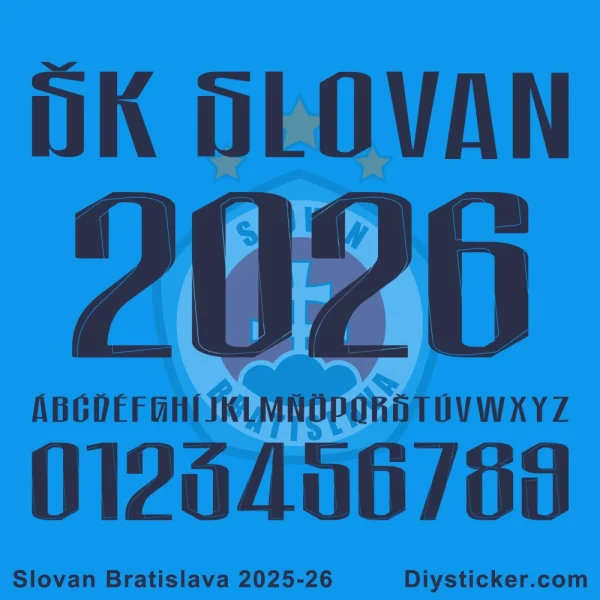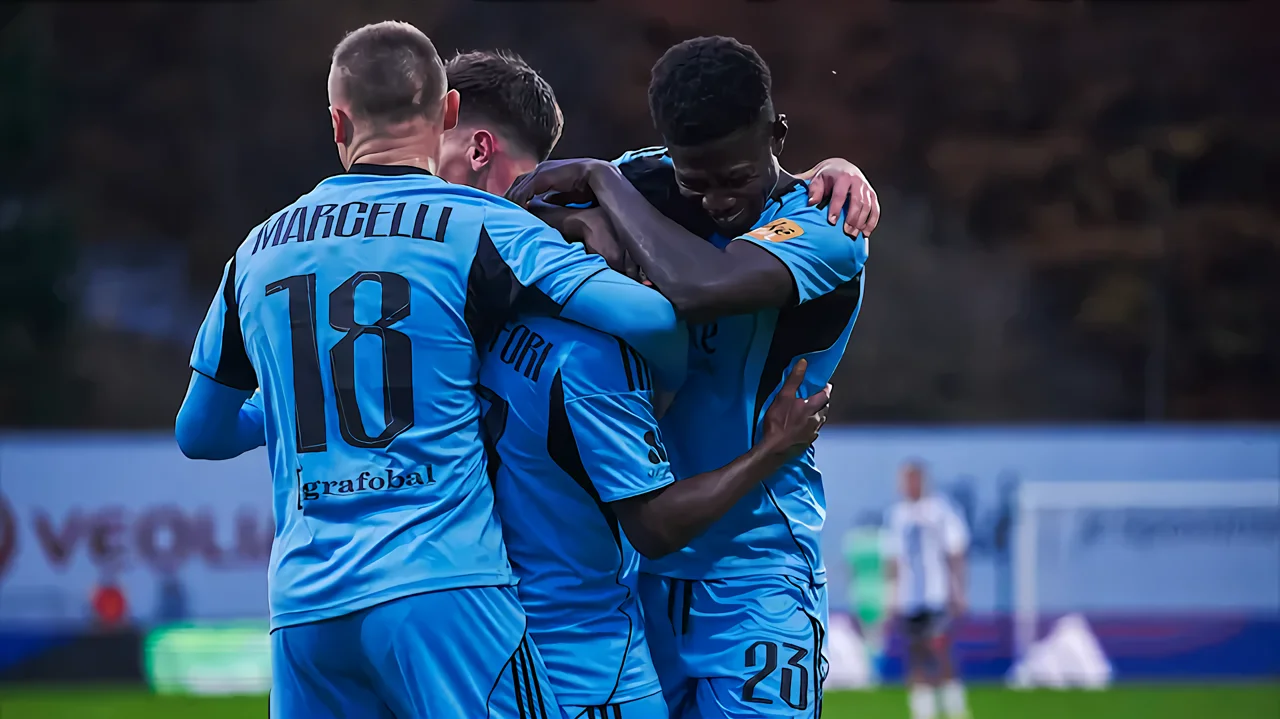
Represent the pride of Slovak football with the official SK Slovan Bratislava 2025-26 Font. This is the authentic typeface used by the most successful club in Slovakia on its official kits, Fortuna Liga graphics, and all communications for the new season.